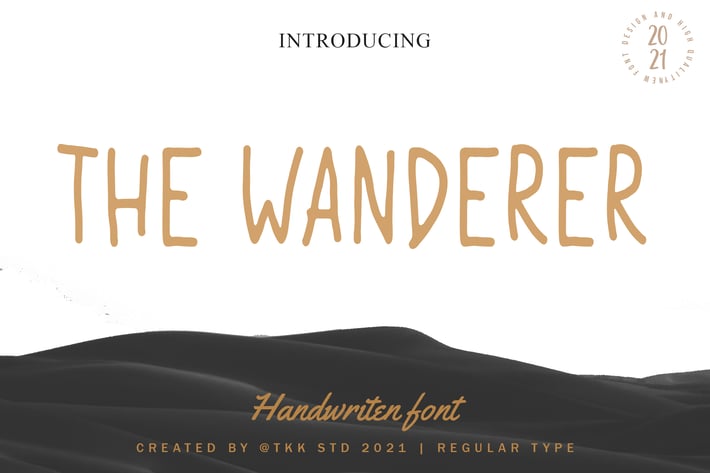
The Wanderer - Condensed handwriting font
The Wanderer - Handwritten Font
The Wanderer is a condensed handwritten font crafted with a soft signature aesthetic, designed for designers seeking elegance with edge. Its flowing strokes and tall, narrow proportions lend a modern, fashion-forward vibe, ideal for editorial layouts, minimalist packaging, and high-end branding. The font exudes calm confidence, with a natural pen-drawn rhythm and deliberate spacing that adds refinement to every composition.
Use The Wanderer where sophistication meets style: in beauty campaigns, lifestyle blogs, and minimalist product branding. With subtle contrast and stylish letterforms, it speaks the language of elegance, clarity, and intention.
Whether you’re designing for a boutique skincare line, a luxury lifestyle magazine, or a curated Instagram feed, The Wanderer is the font that gives your visuals that touch of quiet authority and clean creativity. Its slender style and handwritten authenticity create visual storytelling that feels bespoke, handcrafted, and effortlessly modern.
It’s the go-to for brands seeking intimate connection through editorial warmth—perfect for fashion labels, interior brands, coaches, or influencers who need polished but personal messaging.
Editorial-Focused Structure
- Tall condensed letterforms ideal for vertical layouts and narrow compositions
- Elegant balance of flow and form, with clean lines and handwritten charm
Polished Yet Organic
- Evokes handwritten notes, making it ideal for personal branding and luxe storytelling
- Perfectly blends casual strokes with structural sophistication
* Multi-Niche Ready
- Designed for fashion brands, social media designers, packaging creatives, and modern editors
- Seamlessly fits into product photography overlays, blog headers, and minimalist brand kits